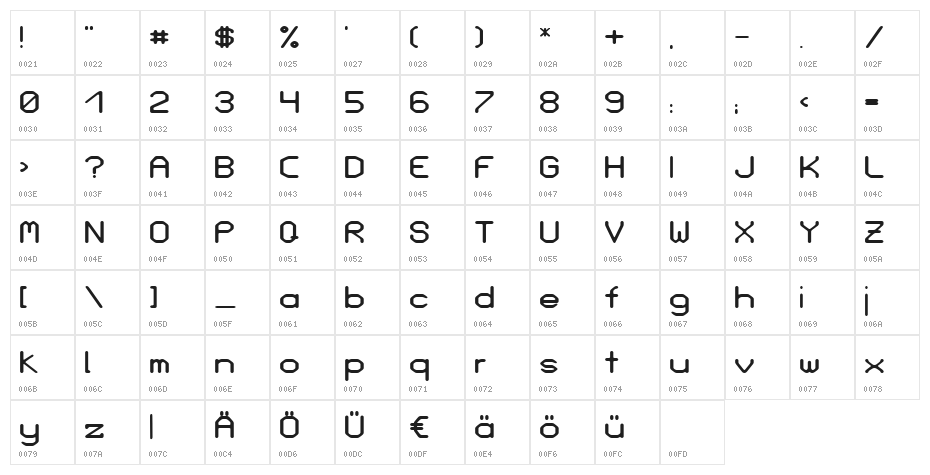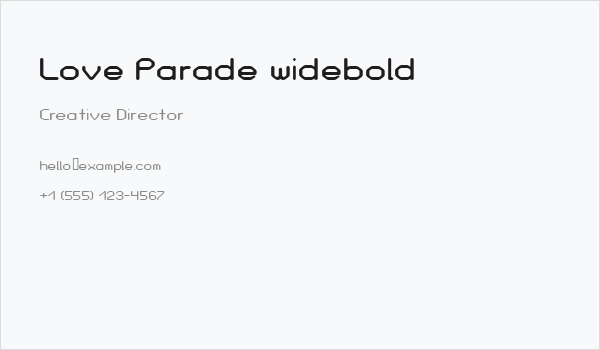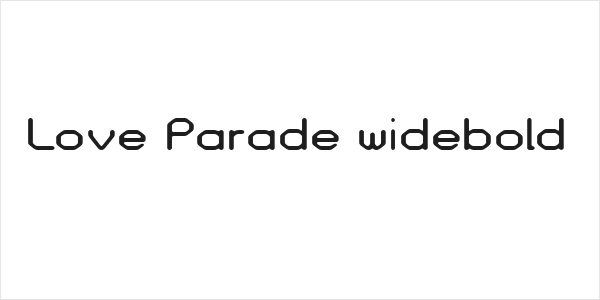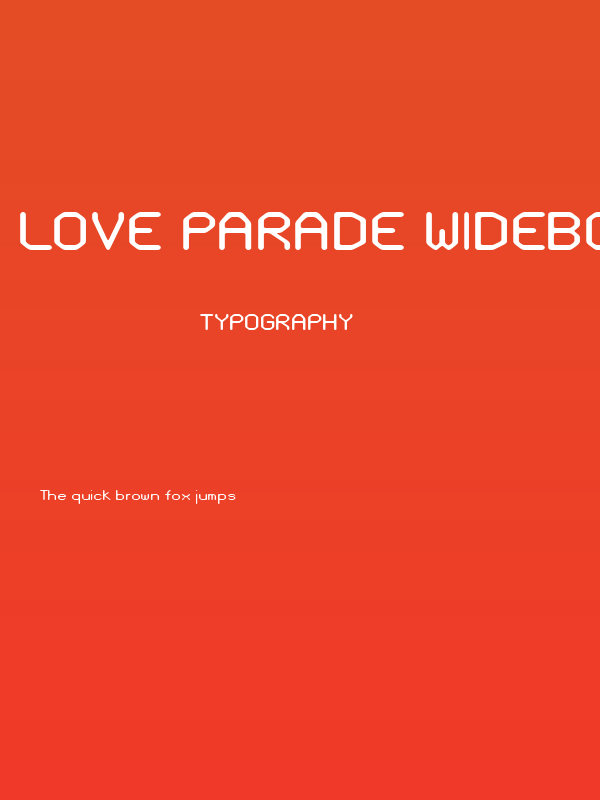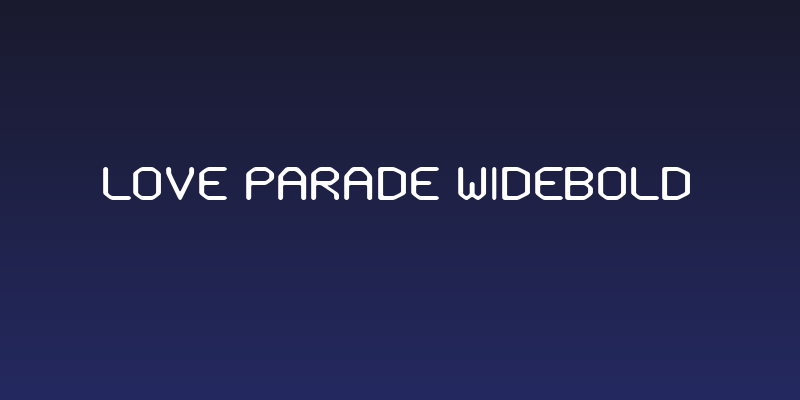
Love Parade widebold Font
Love Parade widebold Description
This font features a unique, rounded geometric style with a modern and playful appearance. The characters are bold and have a uniform stroke width, giving them a consistent and cohesive look. The rounded edges and open counters add a friendly and approachable feel, making it suitable for a variety of design projects. The font maintains a clean and minimalistic aesthetic, which enhances readability while adding a touch of creativity. Its distinctive style makes it stand out, yet it remains versatile enough for both digital and print media.
Proposed ProjectsIdeal for branding, packaging, posters, and digital media where a modern and approachable look is desired.